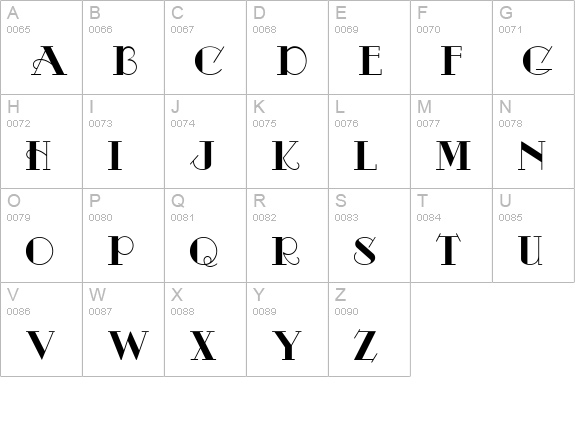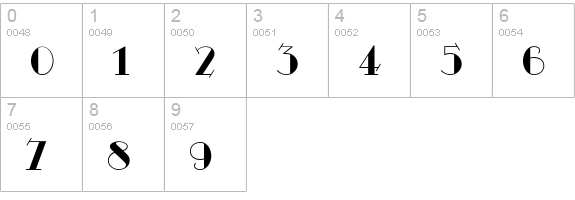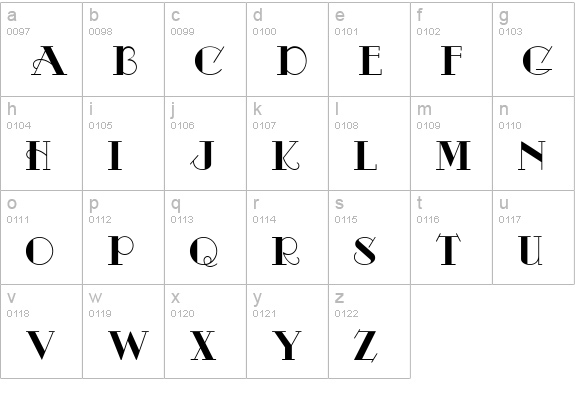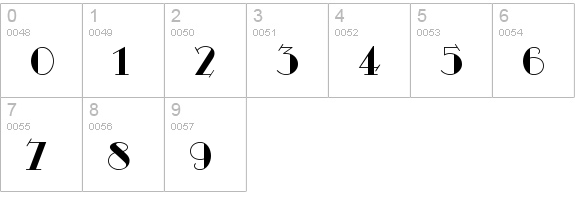
Odalisque NF Font Details
Odalisque NF is a mesmerizing font that effortlessly combines elegance with a touch of exotic charm. Its graceful and flowing curves make it a perfect choice for any design project that requires a hint of sensuality and allure. With its delicate strokes and intricate details, this font is sure to captivate and enchant viewers. What sets Odalisque NF apart is not just its striking appearance, but also the fact that it is freely available to download at FontsMarket.com. This means that designers and creatives can easily access this beautiful font without any restrictions or limitations. Whether you're working on a personal project or a professional endeavor, Odalisque NF allows you to unleash your creativity without the burden of any financial constraints. Adding Odalisque NF to your font collection is like adding a versatile tool that can be used to create stunning typographic designs. Its versatility allows it to seamlessly blend into various design styles, whether it's used for branding, packaging, invitations, or any other creative endeavor. The timeless beauty of Odalisque NF is bound to leave a lasting impression on anyone who encounters it. With its free availability at FontsMarket.com, Odalisque NF becomes an essential addition to any designer's toolkit. It empowers designers to explore new horizons and experiment with typography, without worrying about budget constraints. Its availability ensures that everyone has access to high-quality, visually captivating fonts, regardless of their background or resources. So, if you're looking to add a touch of elegance and allure to your designs, look no further than Odalisque NF. Download this stunning font for free at FontsMarket.com, and let your creativity soar to new heights.